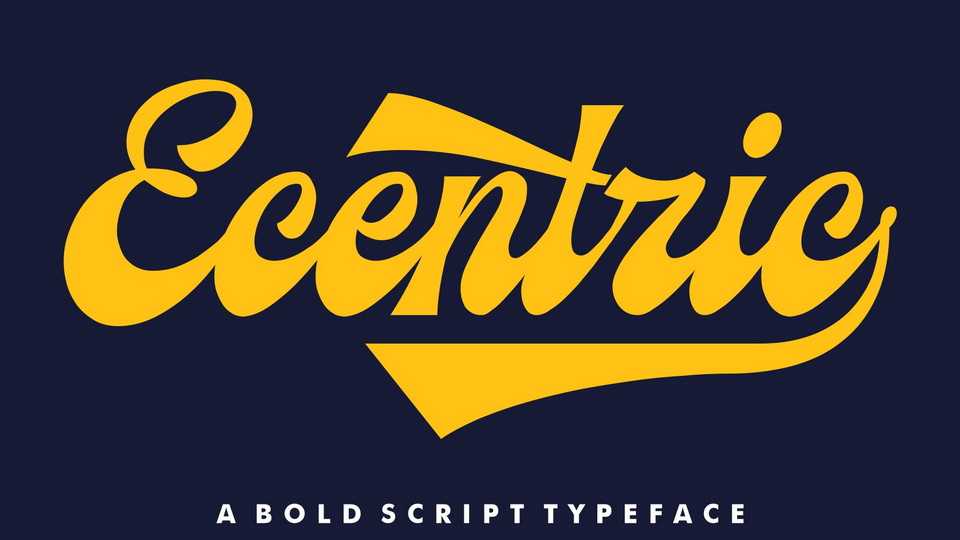
Ecentric Retro Script Font › Fontesk – Download Grátis
Download Ecentric font, a retro typeface inspired by the old ads, labels, and signs from 50/6´s. Ecentric is a typography collection to give your retro design a cool and vintage atmosphere.